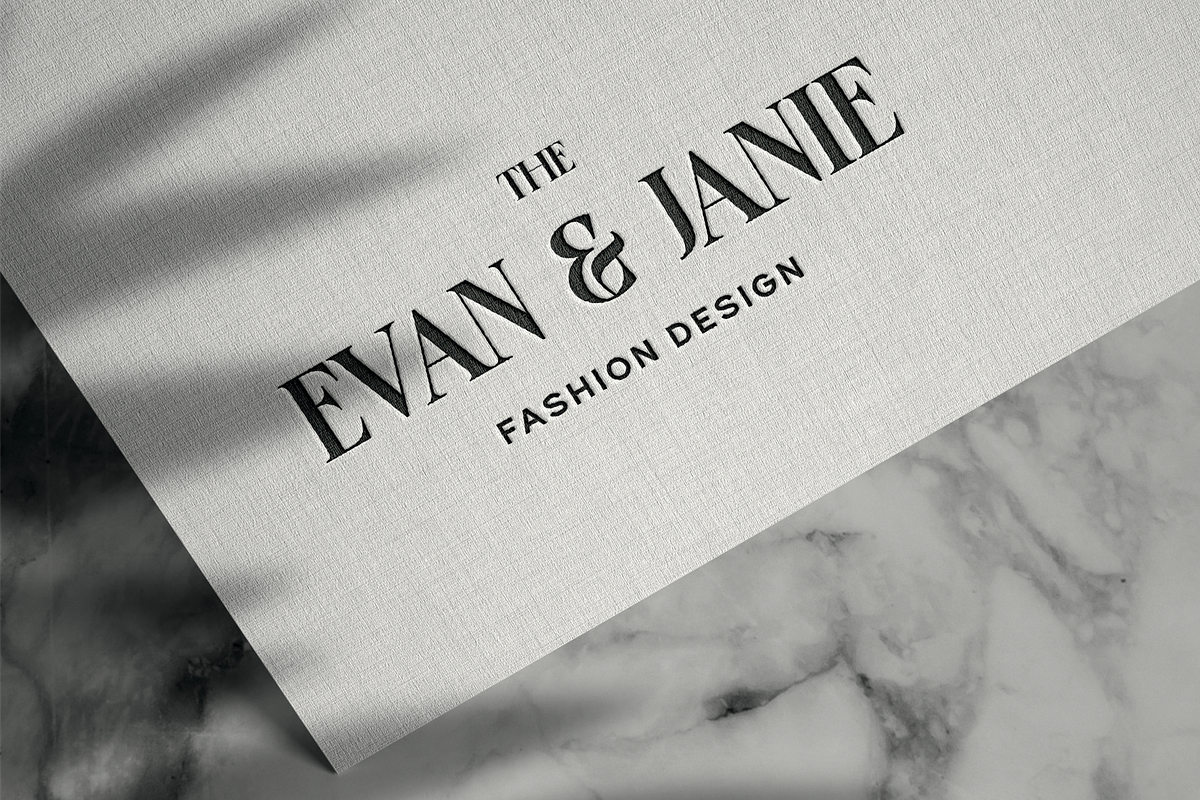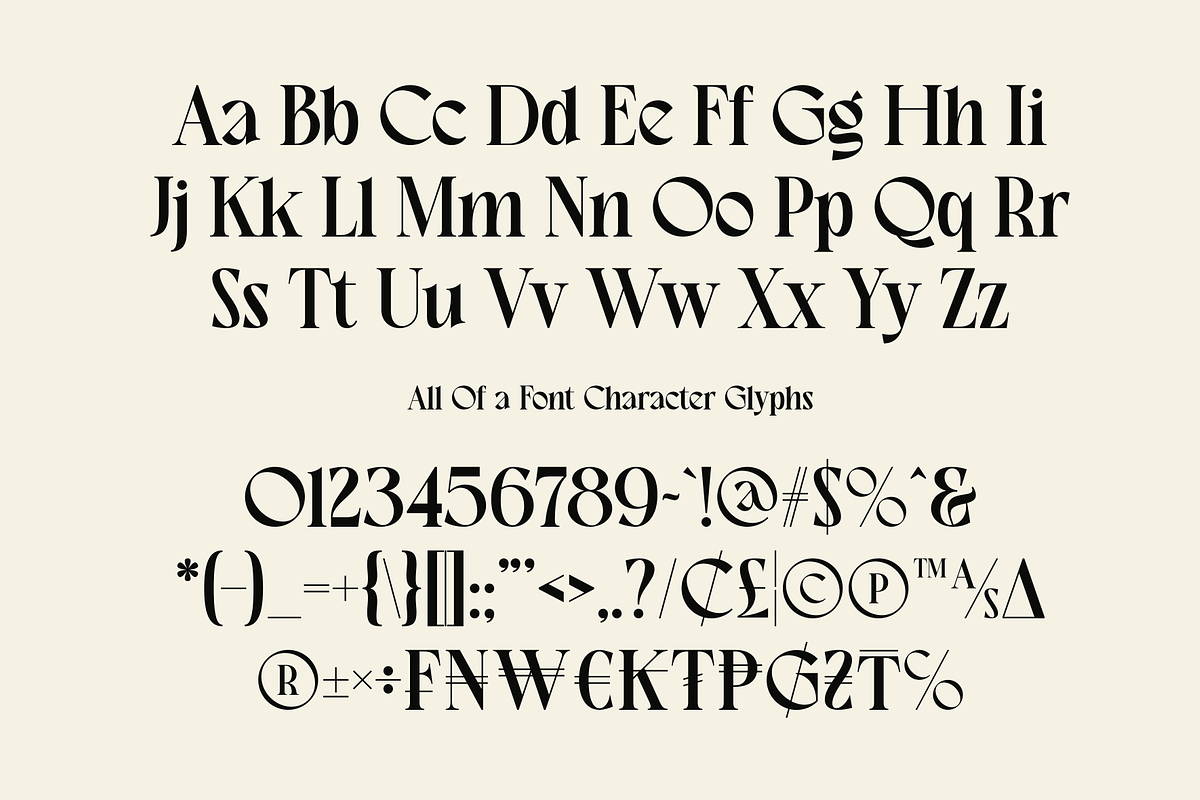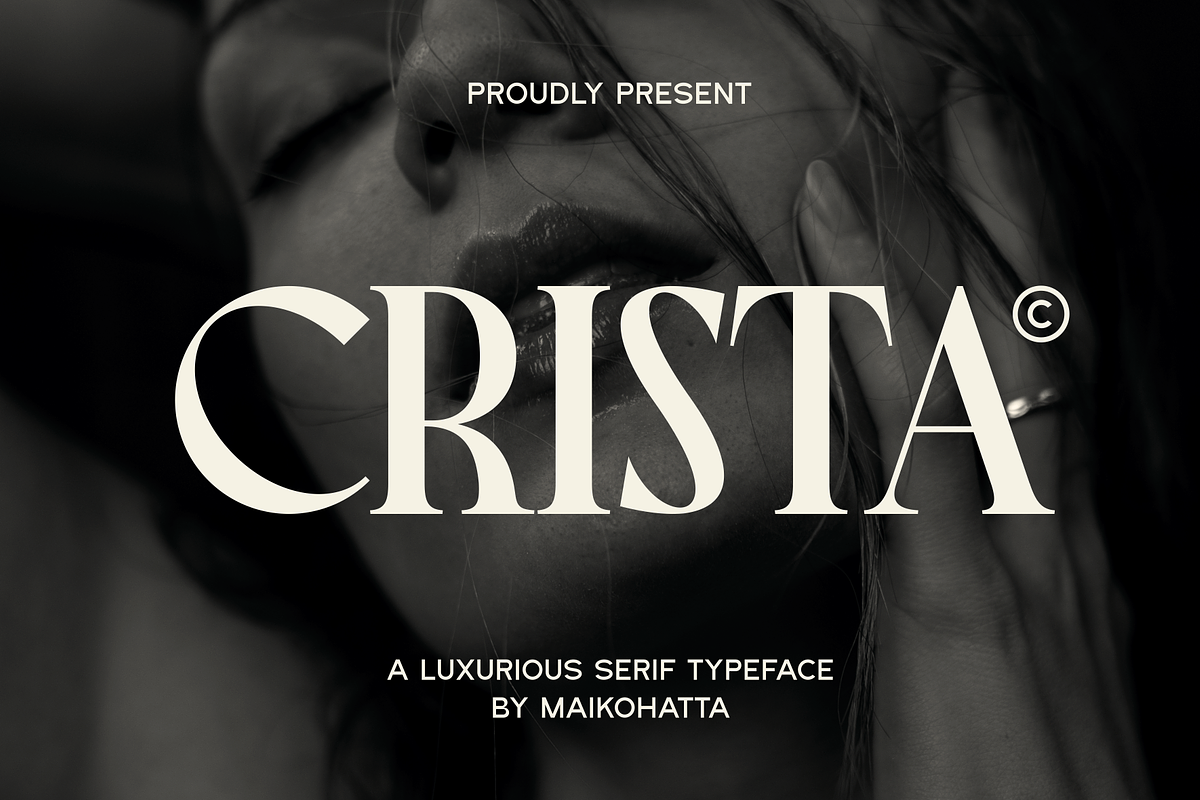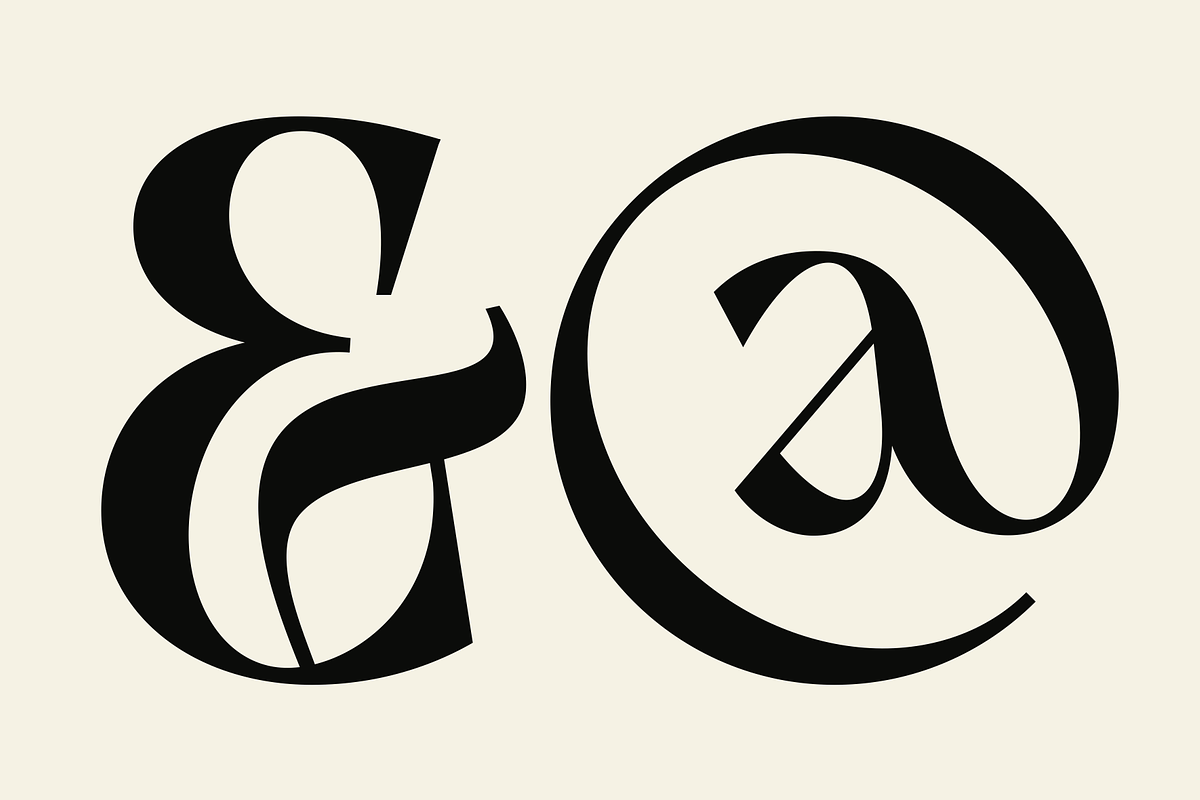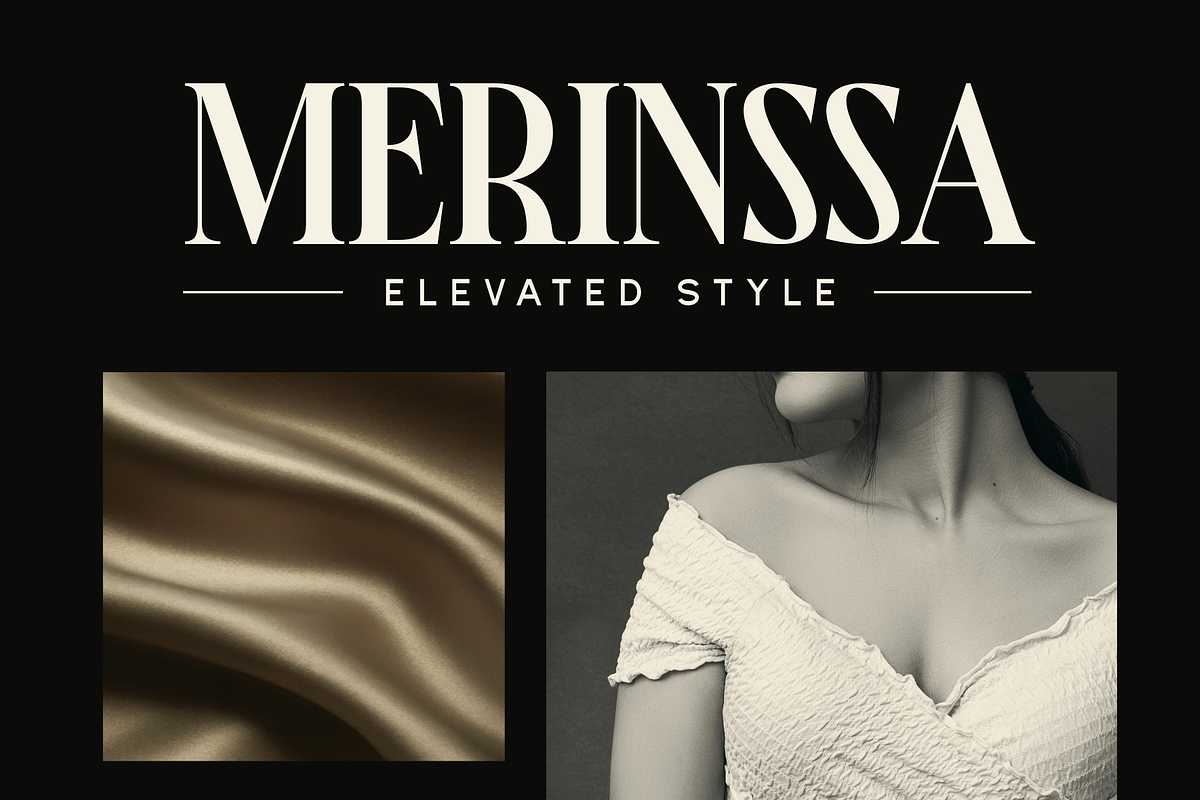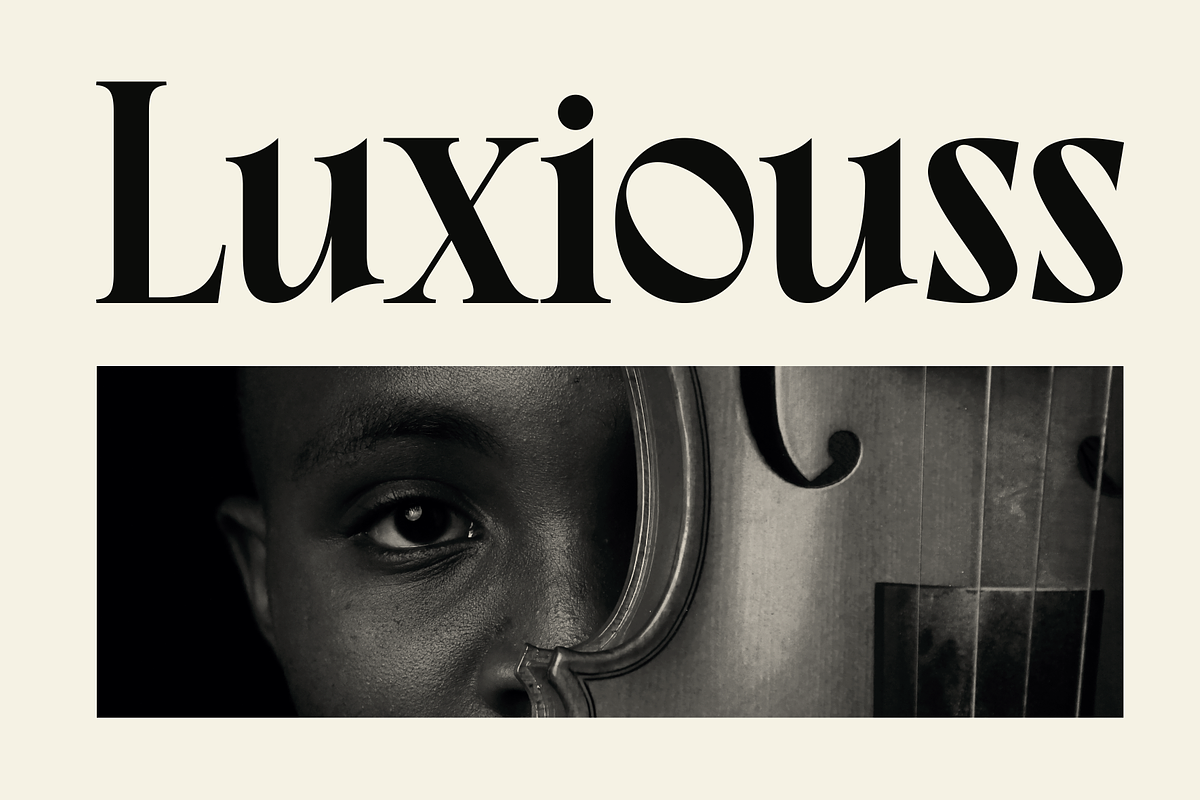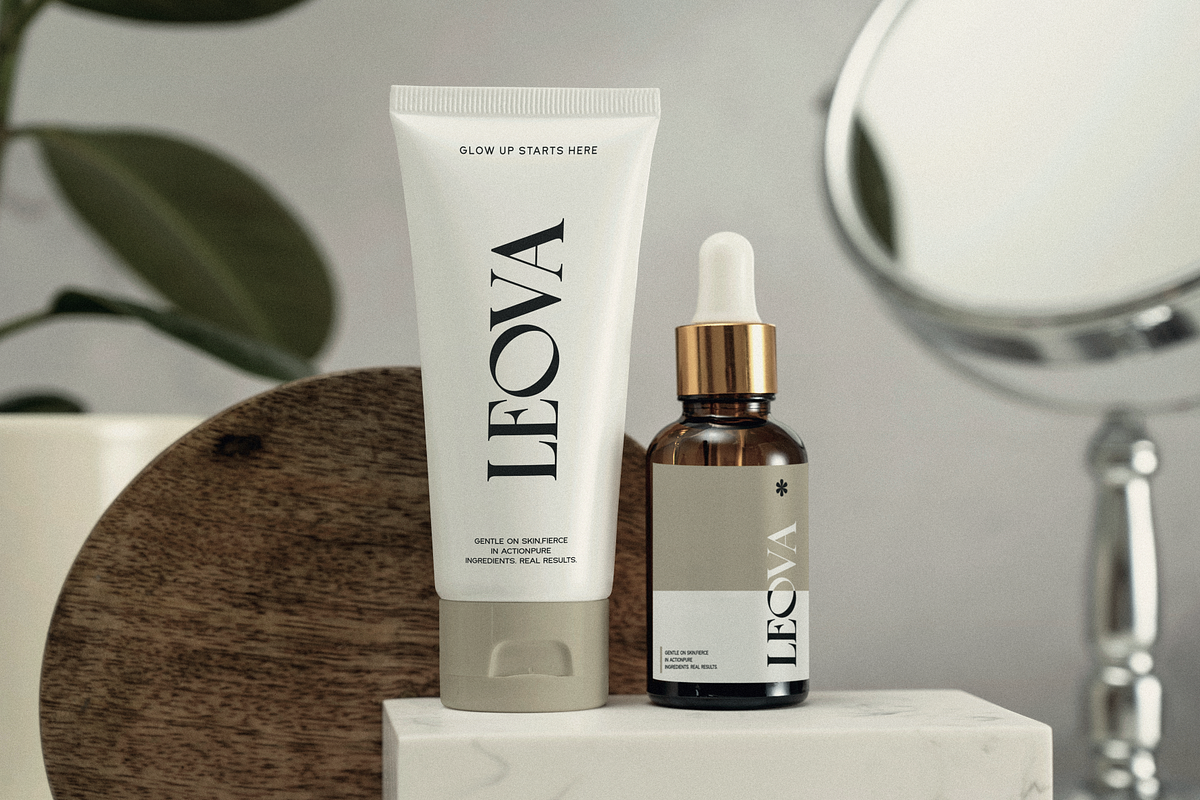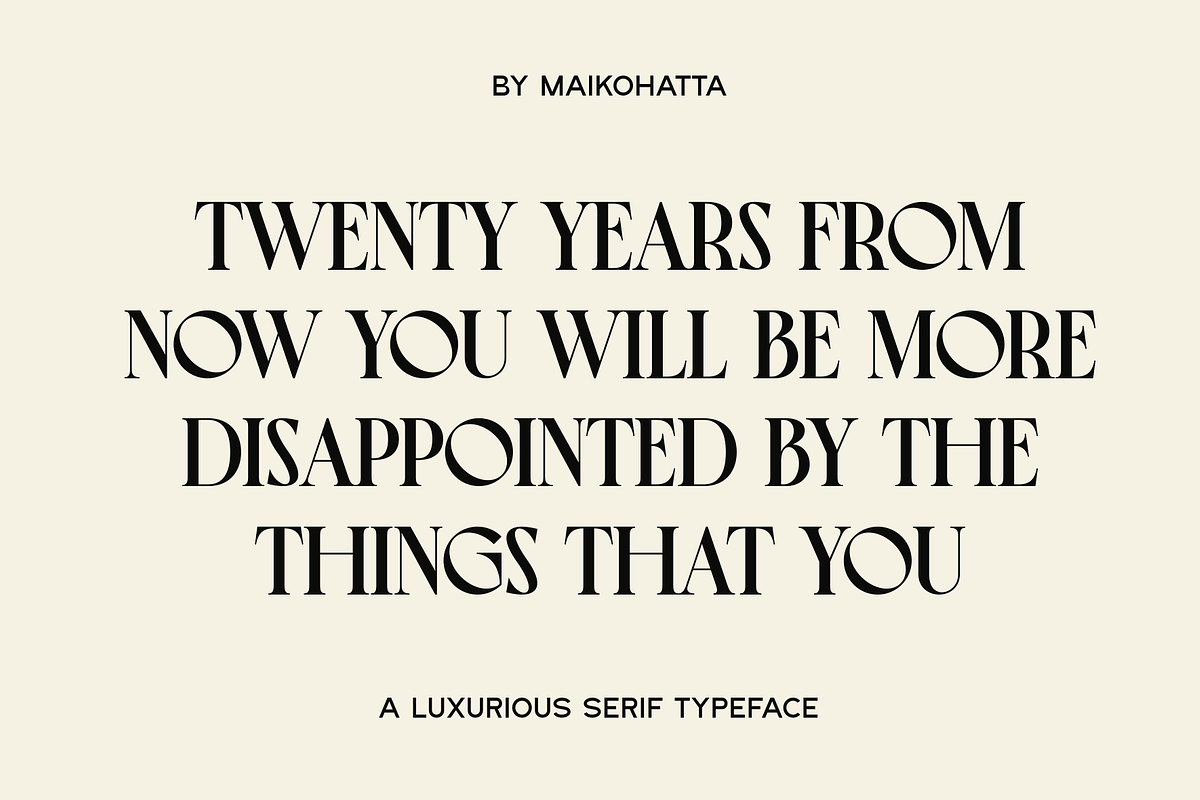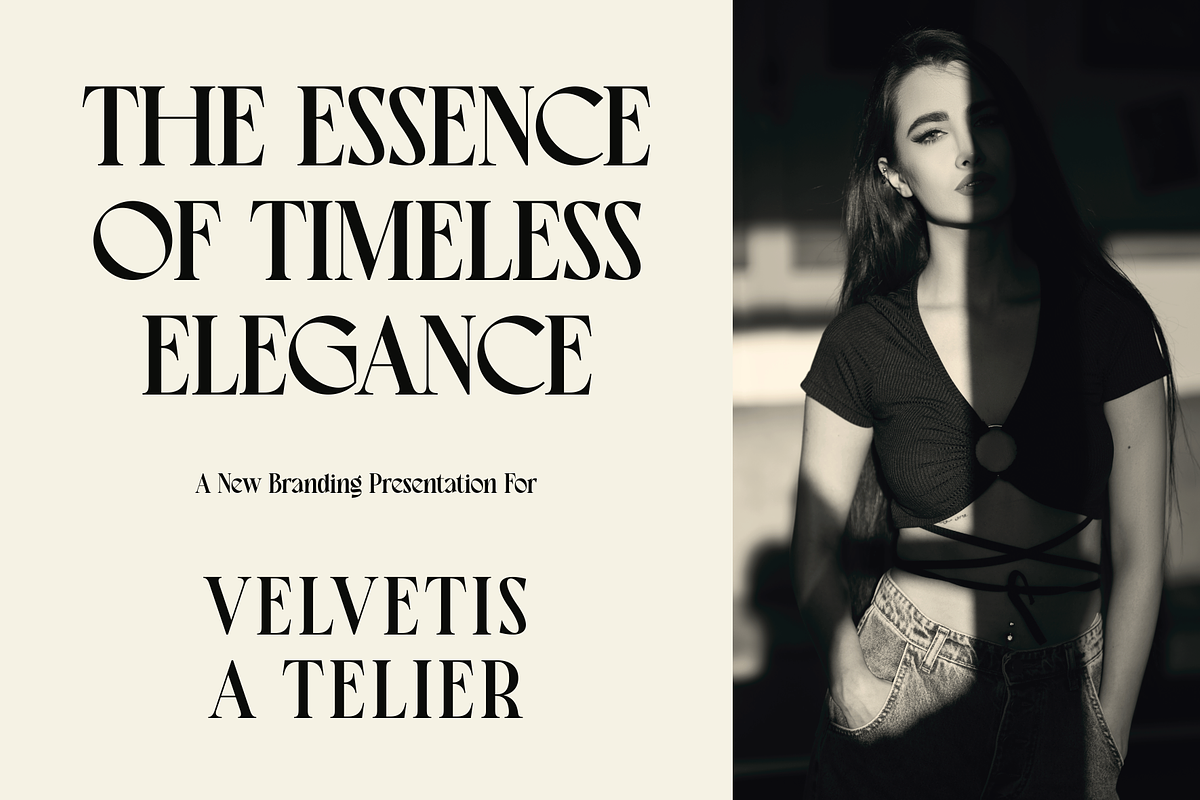
Crista - Elegant Serif Typeface
Introducing our new product Crista - Elegant Serif Typeface
Elegant Serif Typeface is This refined serif typeface exudes timeless sophistication and elegance. Characterized by high contrast between thick and thin strokes, refined serifs, and gentle curves, this typeface balances classic formality with a modern sensibility. Ideal for editorial design, luxury branding, invitations, and high-end packaging, this typeface elevates any layout with a sense of elegance and refinement. Its graceful letterforms and precise details make it perfect for both display and refined body text.